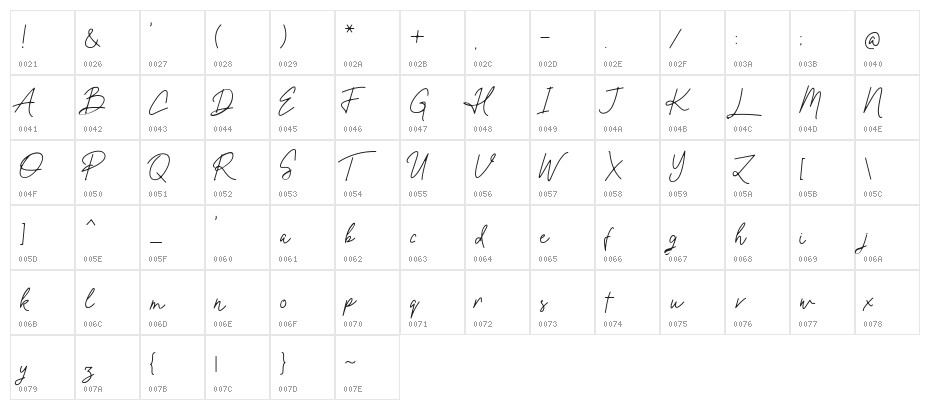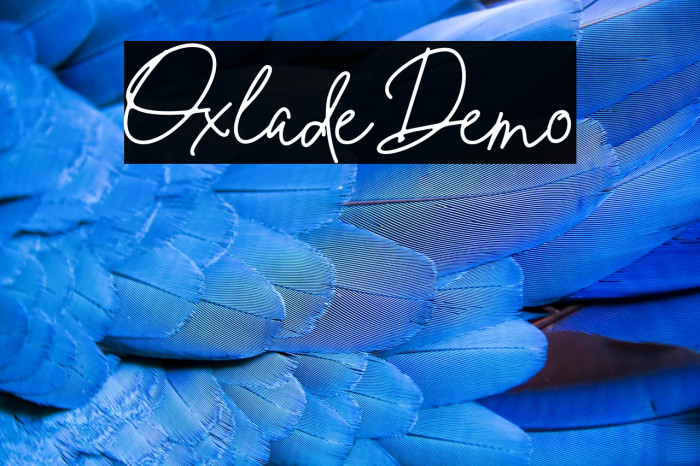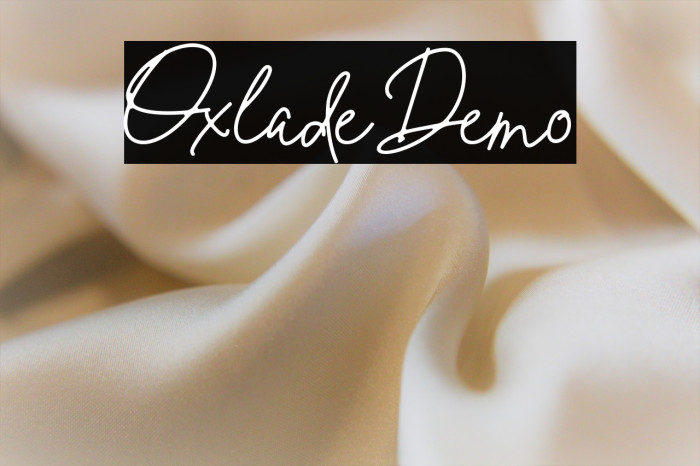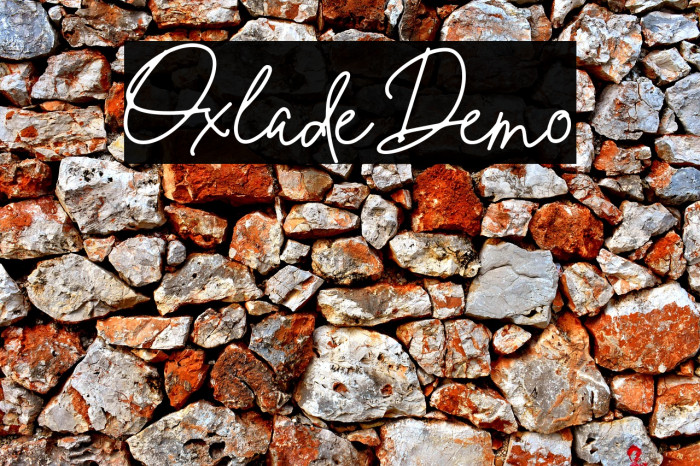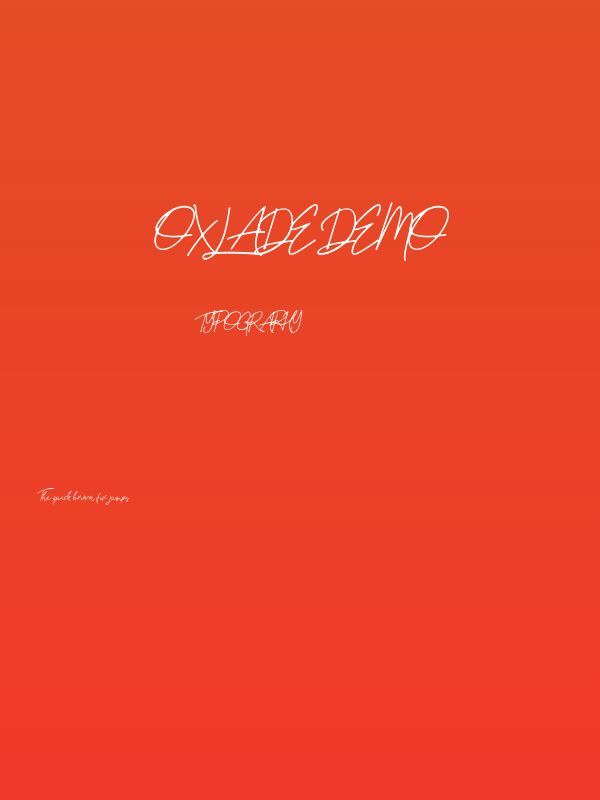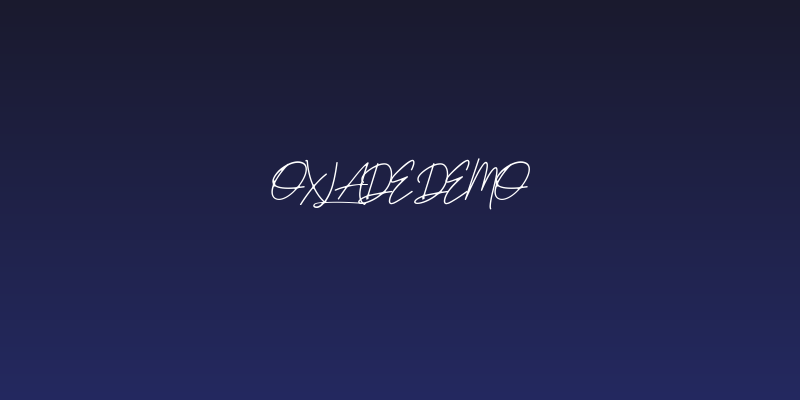
Oxlade Demo Font
Oxlade Demo Description
A loose, expressive handwritten script with tall, narrow letterforms and dynamic, fluid strokes. The characters are connected in a natural, cursive style, giving a casual and personal feel. The lines are thin with noticeable variation in stroke thickness, and the overall appearance is energetic and spontaneous.
| Overall Style | Decorative, Casual, Artistic |
| Use Case | Logos, Invitations, Headlines, Personal notes |
| Proposed Projects | Personal branding, invitations, greeting cards, artistic posters, social media graphics. |